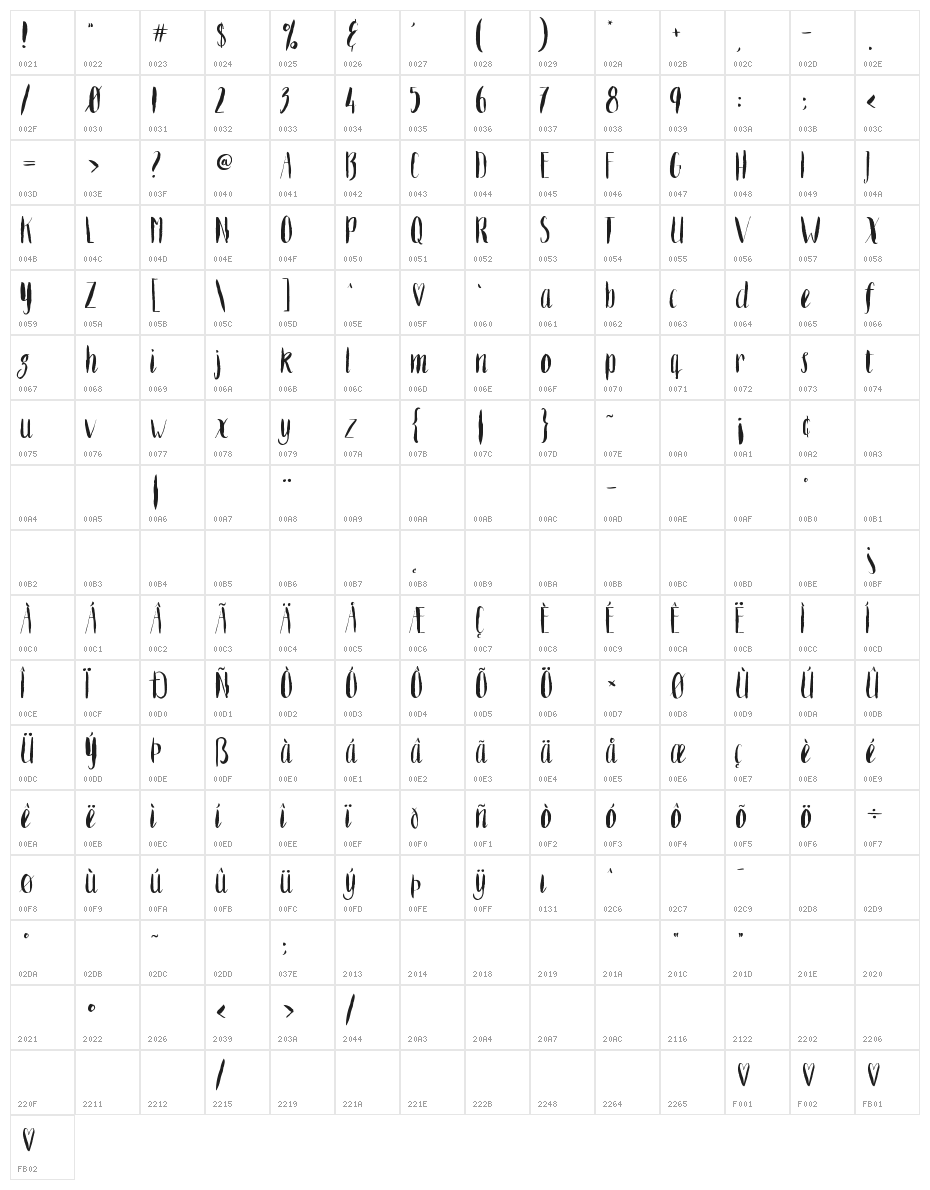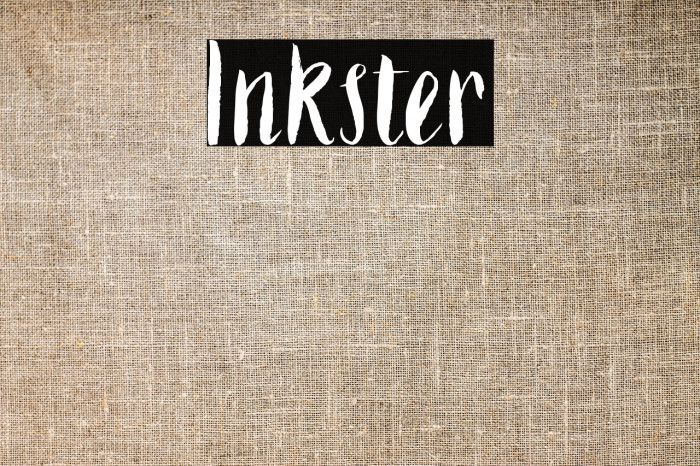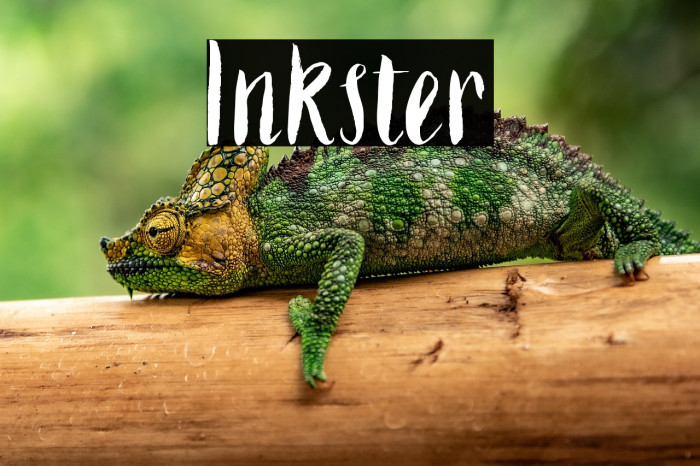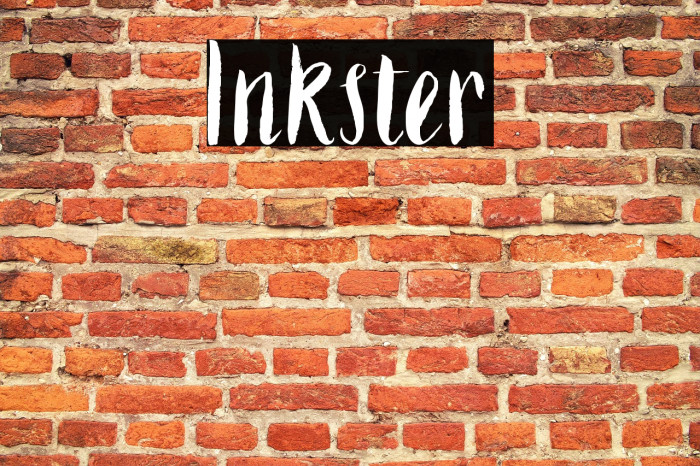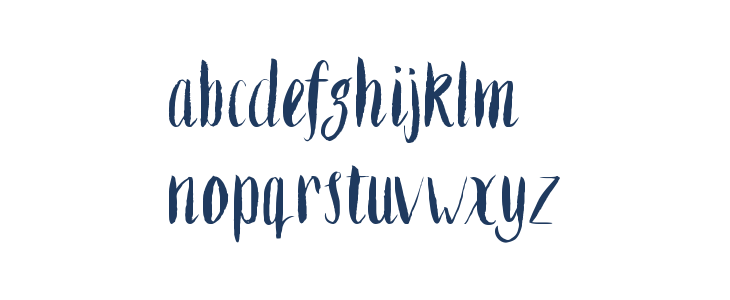
Inkster Font
Inkster Description
This font features a bold and expressive brush style, characterized by its dynamic and fluid strokes. The letters exhibit a hand-painted appearance, with varying thickness that adds a sense of movement and energy. The uppercase letters are tall and slightly condensed, while the lowercase letters maintain a consistent flow, enhancing readability. The numbers and special characters follow the same artistic style, making them visually cohesive with the alphabet. The overall design is modern and artistic, suitable for projects that require a personal and creative touch.
| Proposed Projects | Ideal for branding, posters, invitations, and any design requiring a personal, artistic flair. |